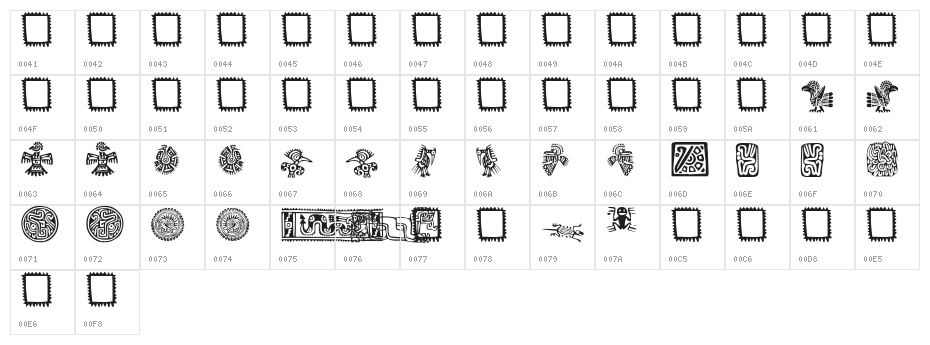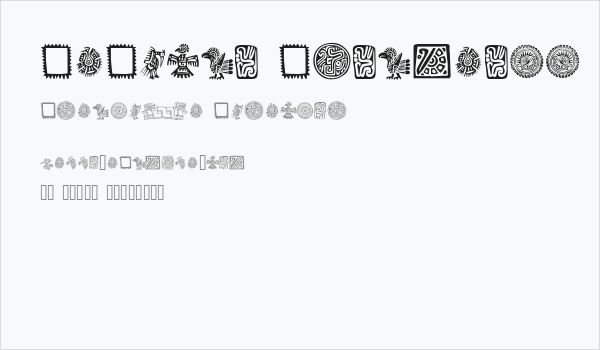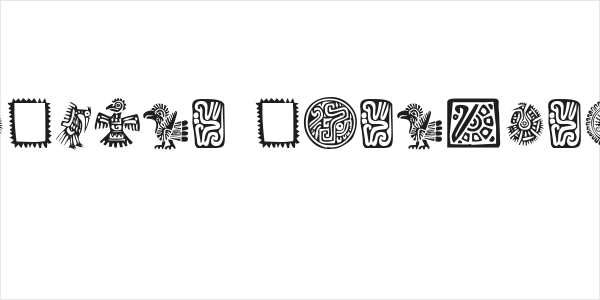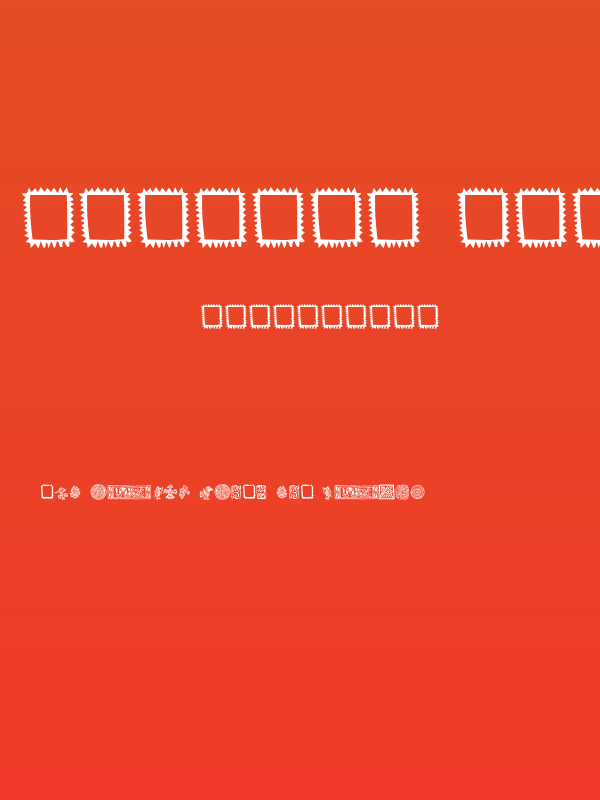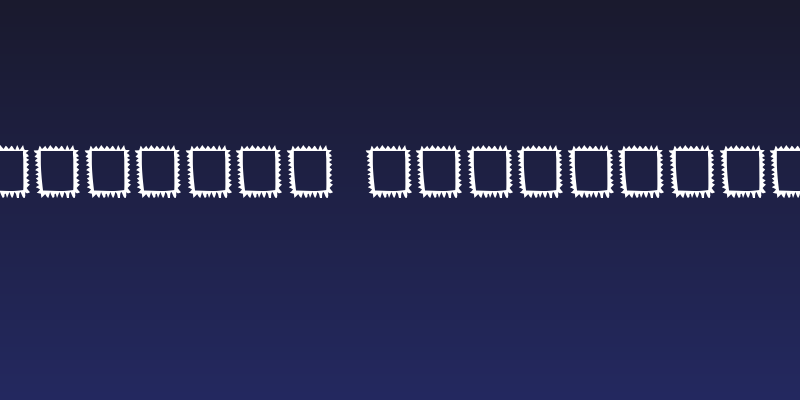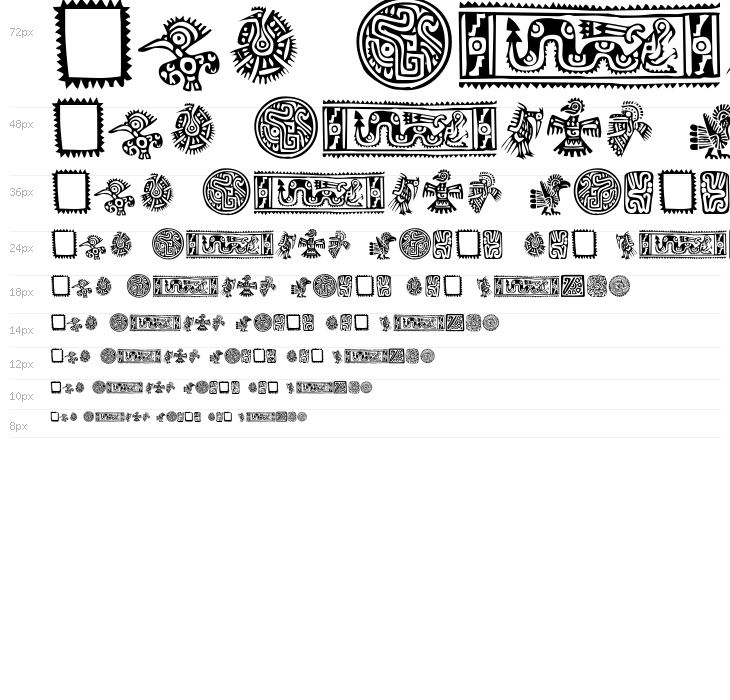
Mexican Ornaments Font
Mexican Ornaments Description
This set of Mexican-inspired ornaments features a variety of intricate and bold designs that reflect traditional motifs. The elements include geometric shapes, stylized animals, and cultural symbols, each with a distinct and detailed pattern. The designs are characterized by strong lines and high contrast, making them visually striking. The ornaments are versatile and can be used to add a decorative touch to various projects, offering a rich cultural aesthetic. The collection includes both symmetrical and asymmetrical designs, providing a diverse range of options for creative expression.
| Use Case | Logos, Decorative elements, Cultural projects |
| Proposed Projects | Ideal for cultural event posters, decorative borders, textile patterns, and artistic projects seeking a traditional Mexican aesthetic. |